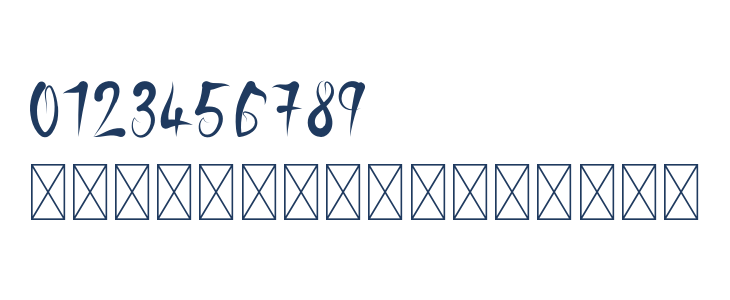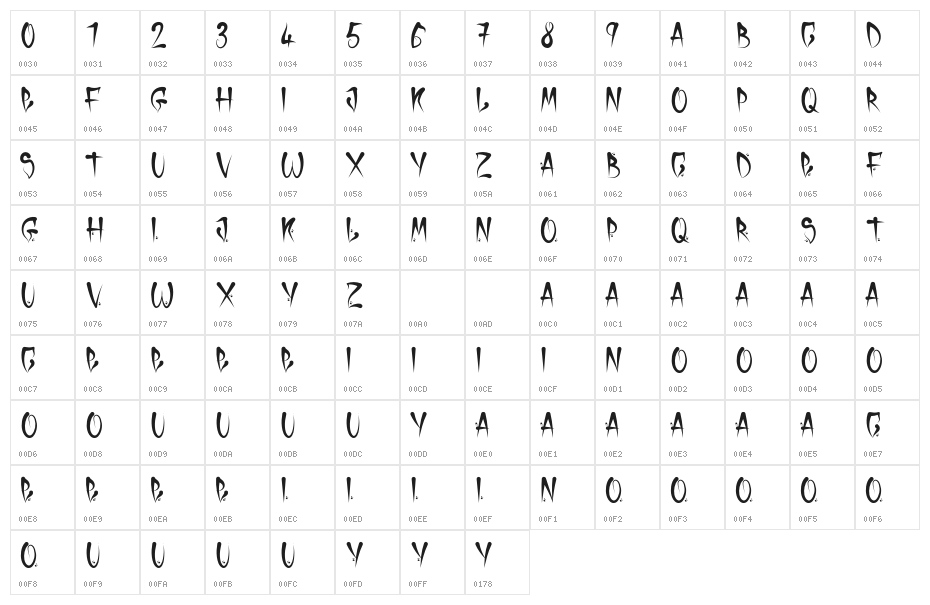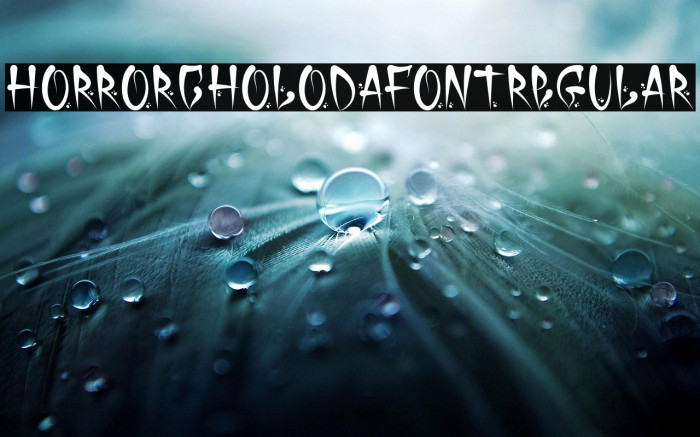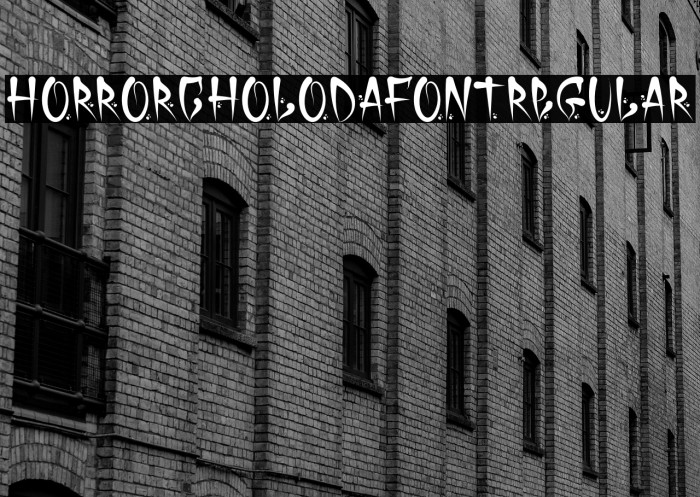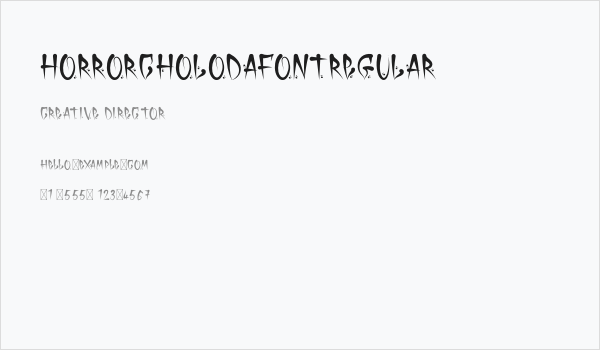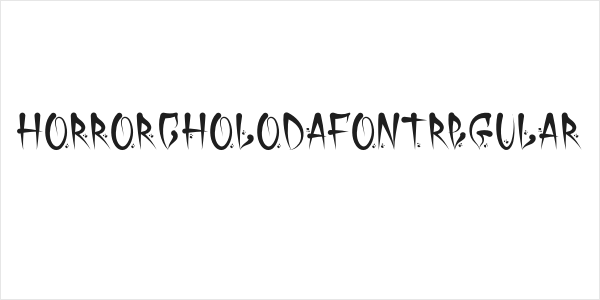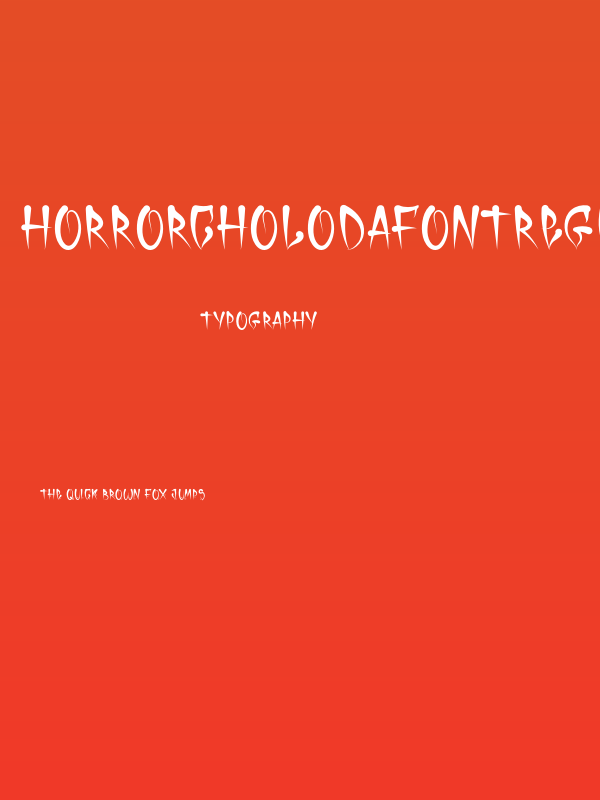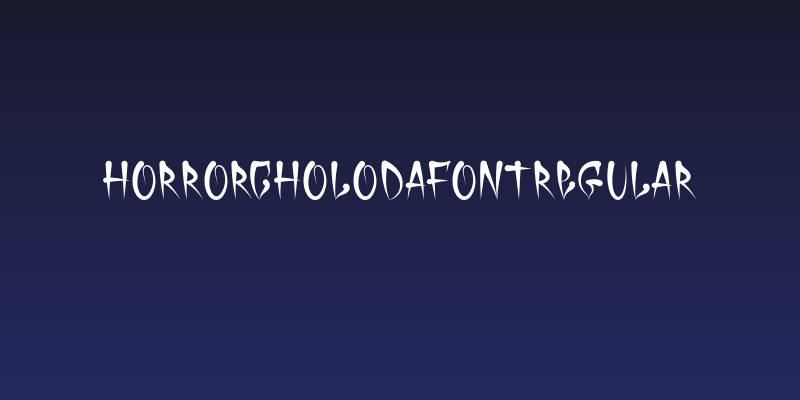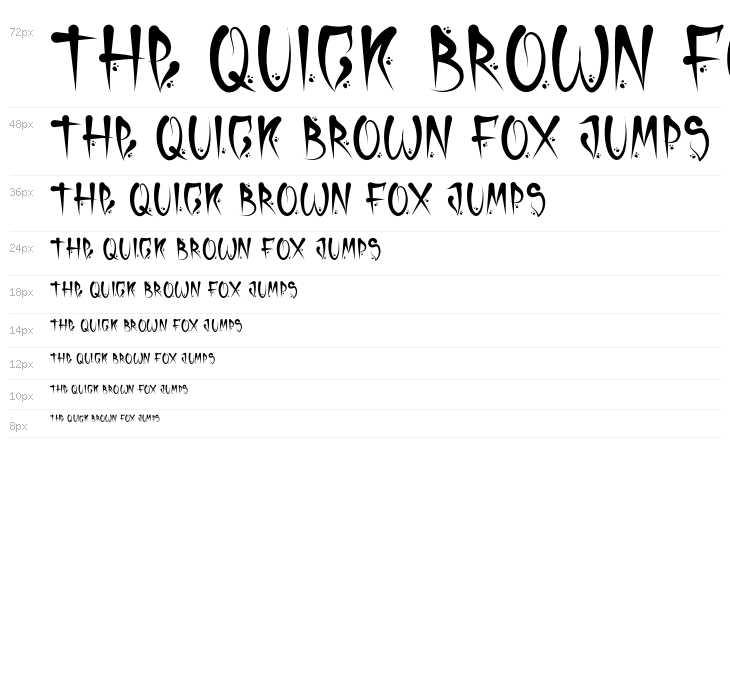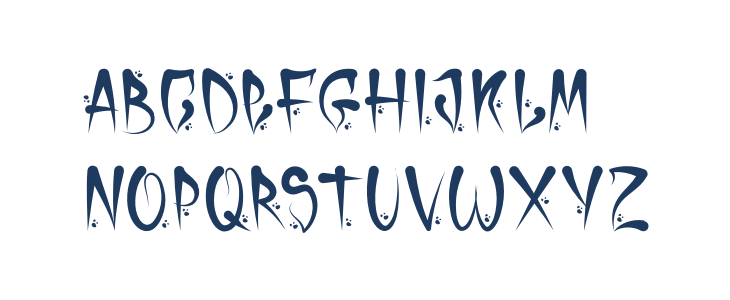
HorrorCholoDaFontRegular Font
HorrorCholoDaFontRegular Description
This font features a unique and edgy design with sharp, pointed serifs and an overall gothic aesthetic. The characters are elongated with dramatic curves and angular strokes, giving it a distinct horror-themed appearance. The uppercase and lowercase letters maintain a consistent style, with some letters incorporating small decorative elements like dots or spikes. The numbers follow the same stylistic cues, ensuring a cohesive look across all characters. This font is perfect for projects that require a bold and striking visual impact.
| Overall Style | Gothic, Horror |
| Use Case | Headlines, Posters, Logos |
| Proposed Projects | Ideal for horror movie posters, Halloween event flyers, or any design needing a spooky, dramatic flair. |